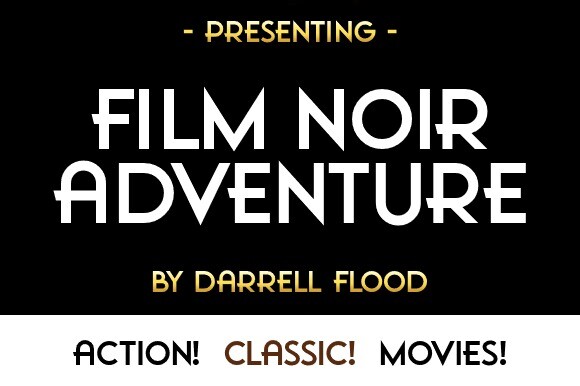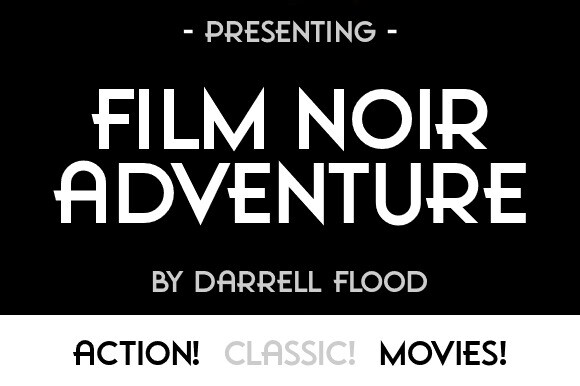
Film Noir Adventure Font
Film Noir Adventure Font – Creative, modern & minimalist font for your new projects. With sharp or geometric style. It’s designed and shared by Dadiomouse. Perfect for period settings, black and white film projects and general all purpose use!